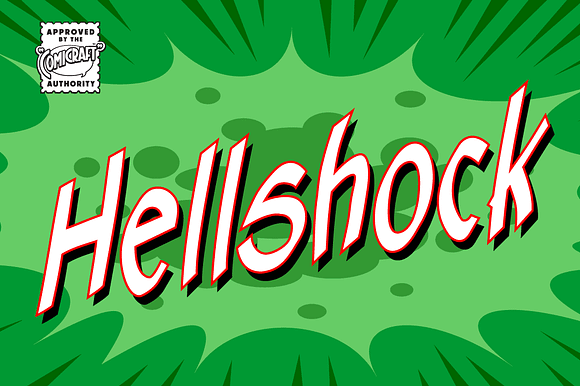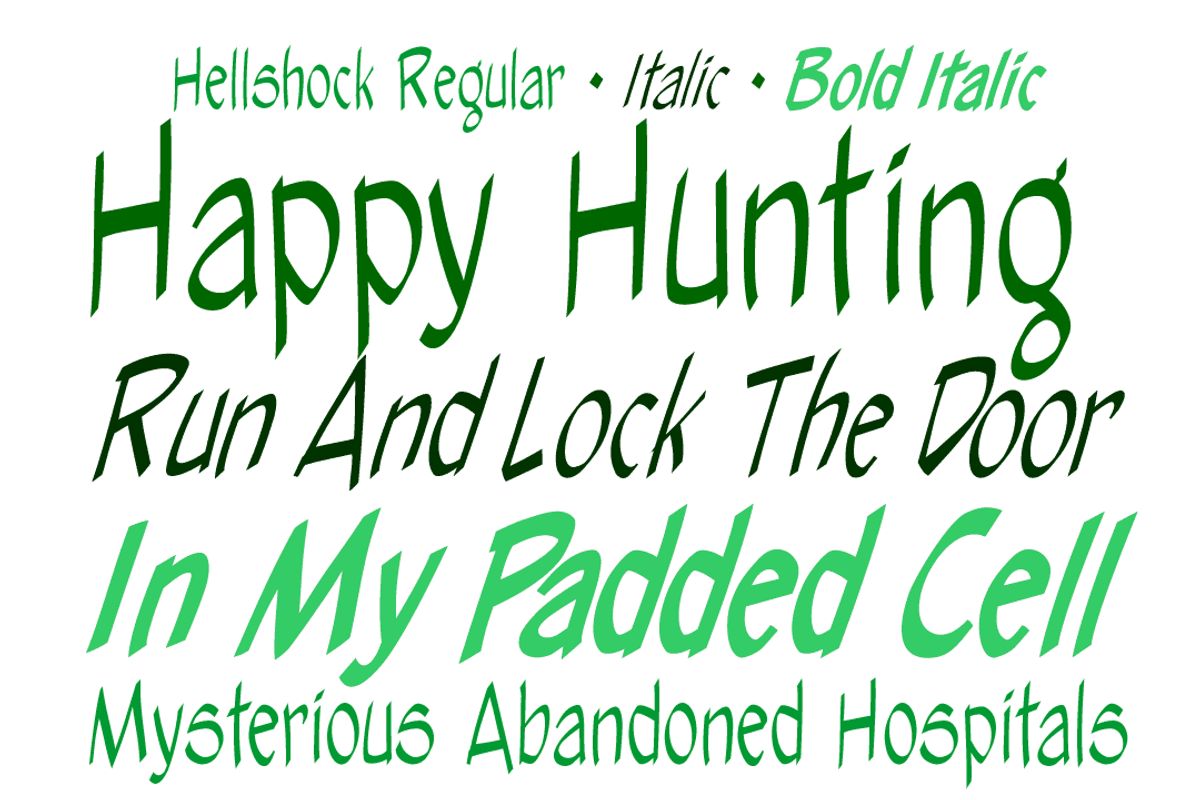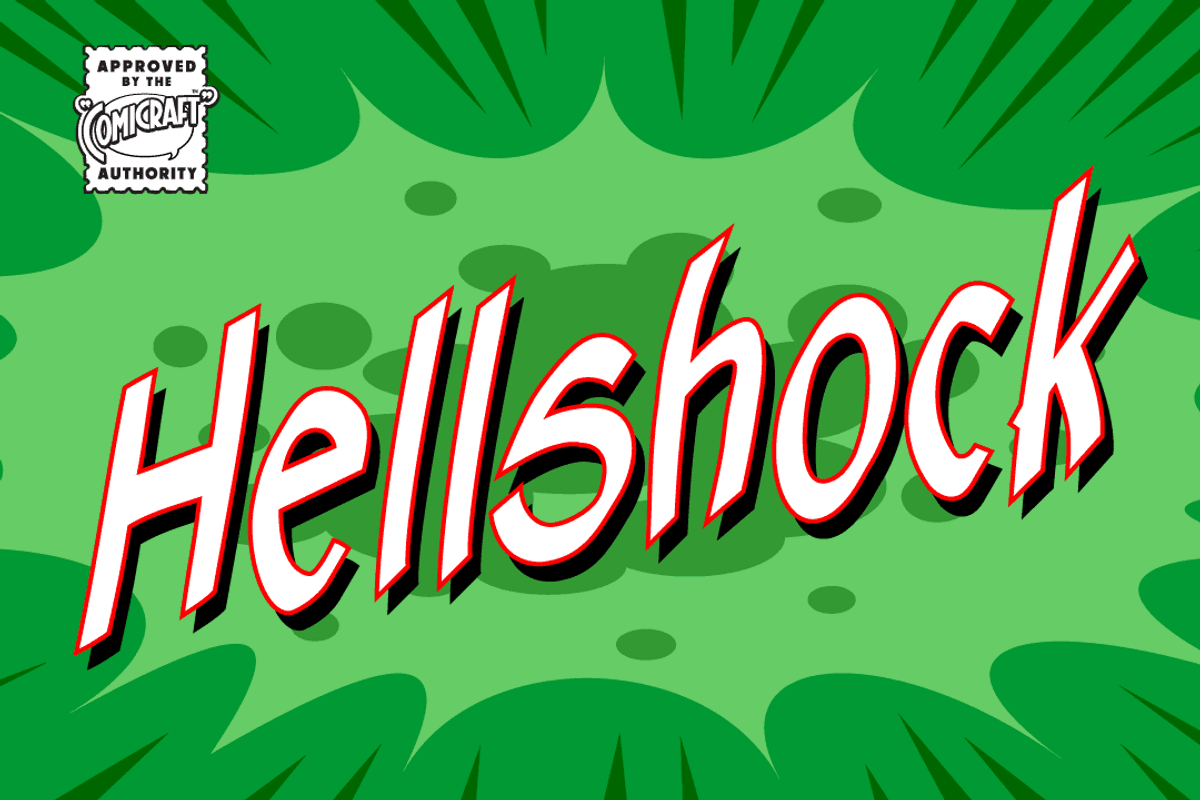
Hellshock
Check into your local lunatic asylum with this font, etched on the walls of his padded cell by Comicraft's left-handed right-hand man, Dave Lanphear, for Jae Lee's Image comic 'Hellshock'.
Hellshock by Comicraft Fonts fits naturally into Branding, posters, packaging, typography.